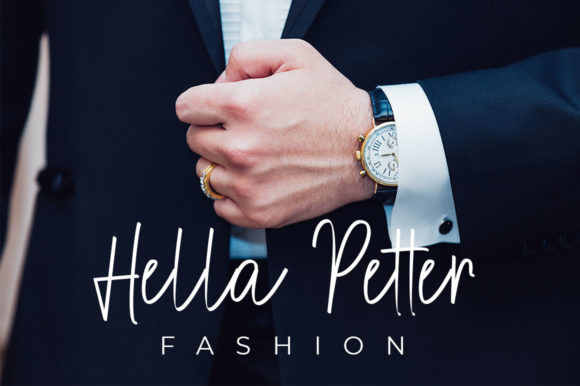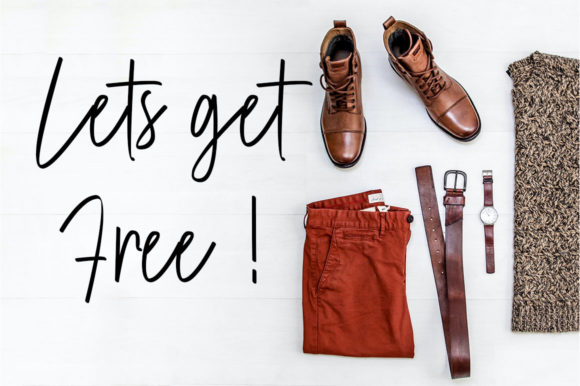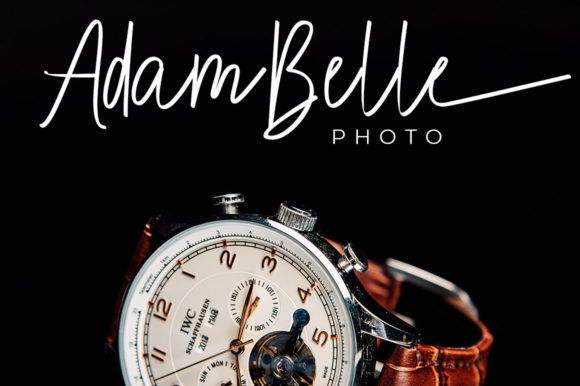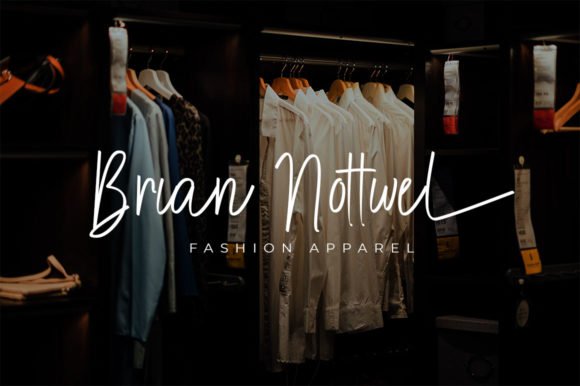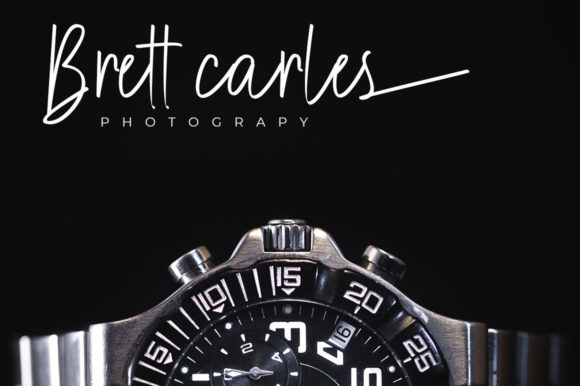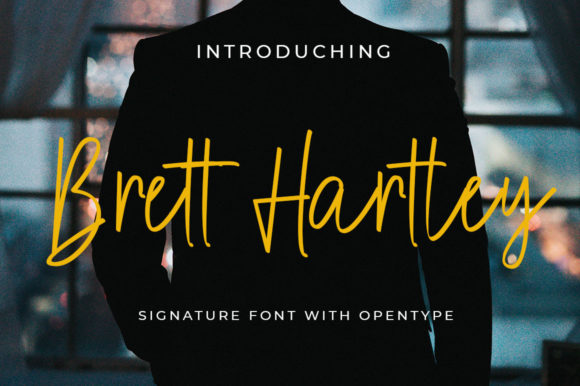
The Charming Brett Hartley Font: A Designer’s Delight
I’ll never forget the time I was working on a wedding invitation project, and my client asked for a font that was both elegant and playful. I scoured the internet, trying out font after font, but nothing seemed quite right. That was until I stumbled upon the Brett Hartley font. It’s been a game-changer for me ever since, and I’m excited to share its charm with you.
I’ve had the pleasure of working with the Brett Hartley font on several projects, and here’s what I think:
- ✨ It’s incredibly charming and elegant, making it perfect for projects that need a touch of sophistication.
- ✅ The font is PUA encoded, which means accessing glyphs and swashes is a breeze.
- ✅ It’s incredibly versatile and can be used on a wide range of projects, from wedding invitations to business cards.
As with any font, there are a few quirks to be aware of:
- ⚠️ Some users may find the font a bit too delicate for certain projects, so it’s essential to test it out before committing.
- 🤔 The font’s elegance may not be suitable for very bold or edgy designs.
The Story Behind Brett Hartley Font
The Brett Hartley font was designed with love and care by a talented type designer. Although the exact story behind the font is unknown, it’s clear that the designer aimed to create a font that was both elegant and charming.
| What is the Brett Hartley font best used for? | The Brett Hartley font is perfect for projects that need a touch of elegance and sophistication, such as wedding invitations, thank you cards, and business cards. |
| Is the Brett Hartley font PUA encoded? | Yes, the Brett Hartley font is PUA encoded, making it easy to access glyphs and swashes. |
| Is the Brett Hartley font available in different weights or styles? | Currently, the Brett Hartley font is available in a single weight, but it’s possible to find variations or similar fonts that offer more weights or styles. |